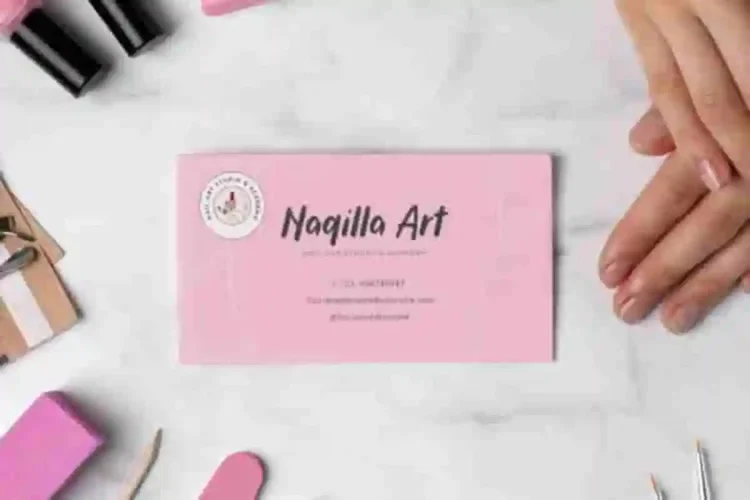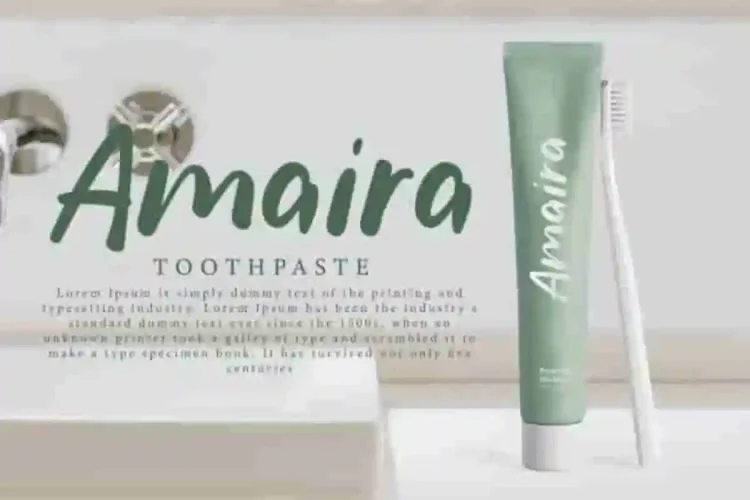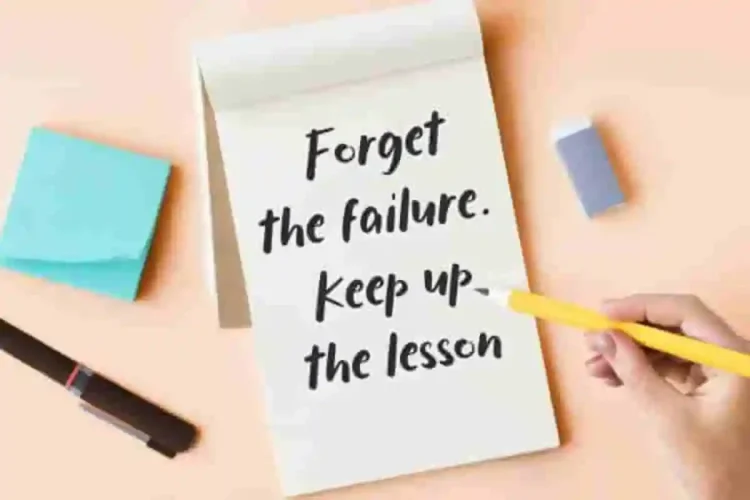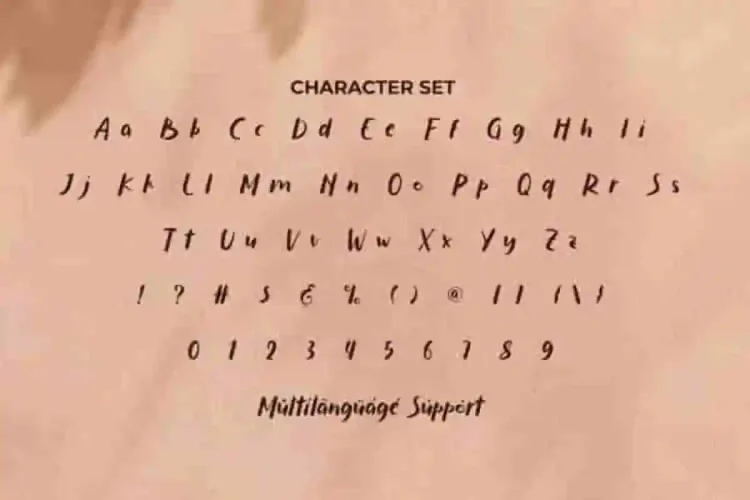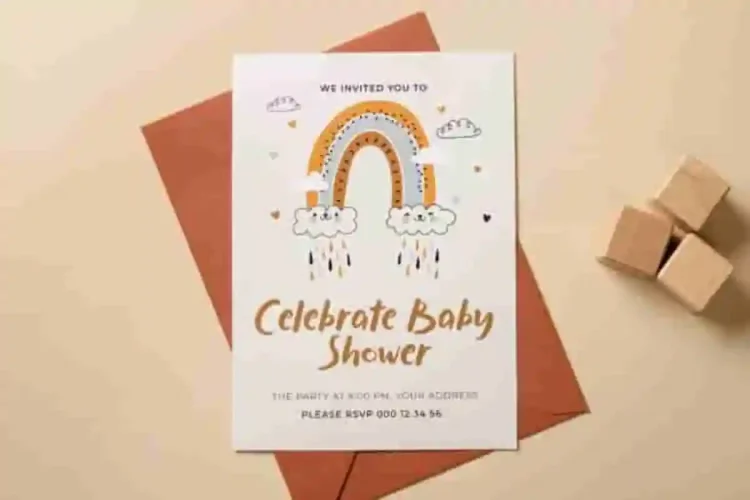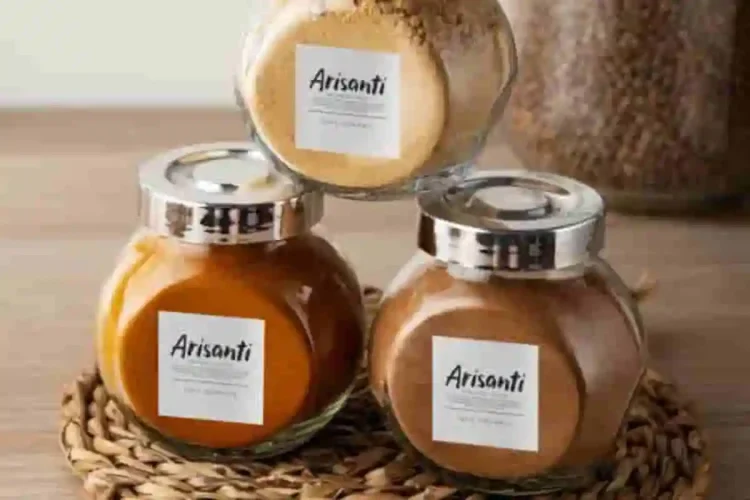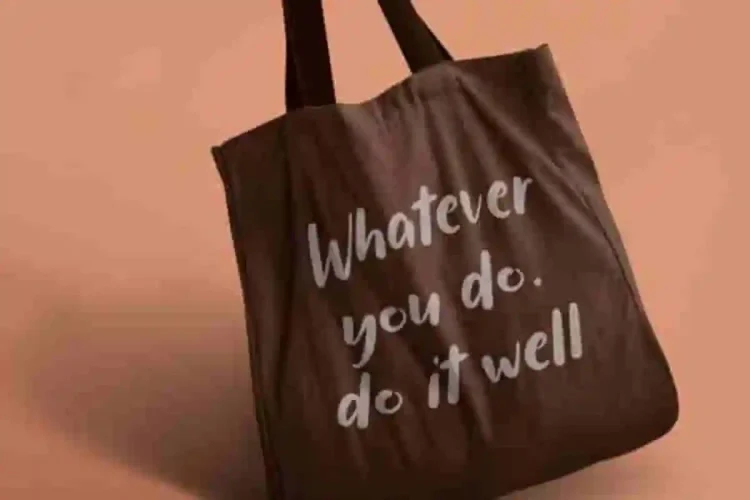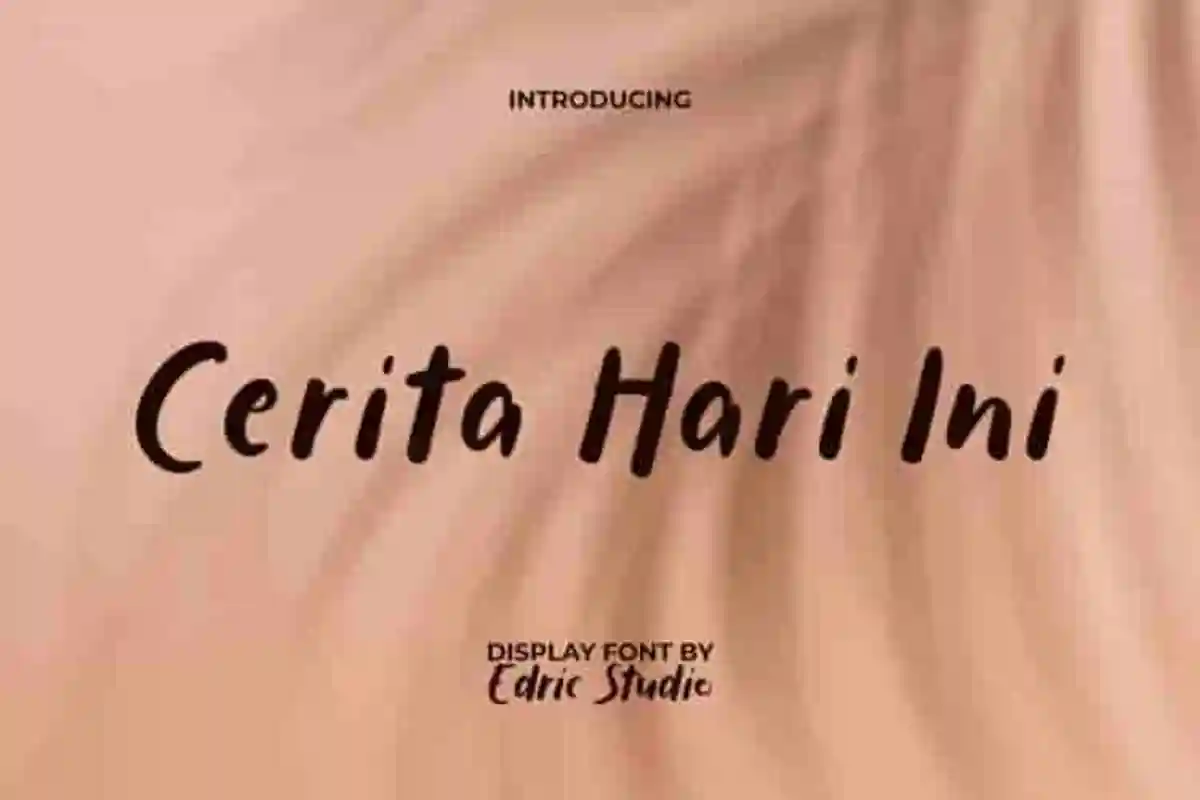
Cerita Hari Ini Handwritting Font is a cute funny but still realistically based on playful handwriting. Inspired by natural strokes and modern calligraphy, this font captures the essence of storytelling, making every word feel alive and expressive.
Cerita Hari Ini Handwritting Display Font is versatile across industries. Use it for wedding invitations, boutique branding, stationery, quotes, social media posts, logos, book covers, and event signage. Its balance of flowing curves and refined letterforms makes your design stand out while remaining easy to read.